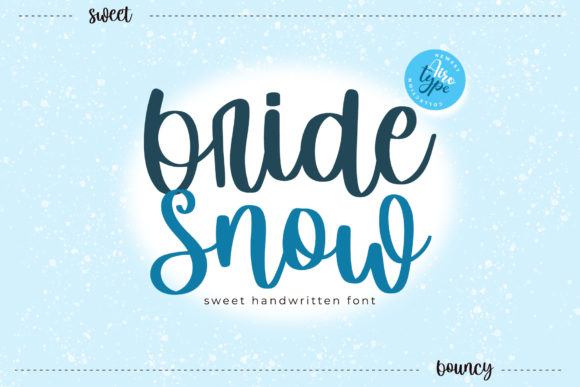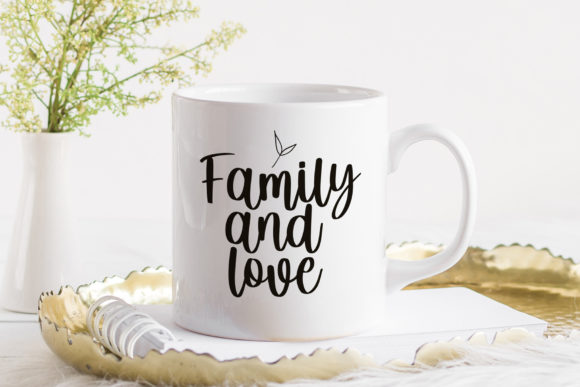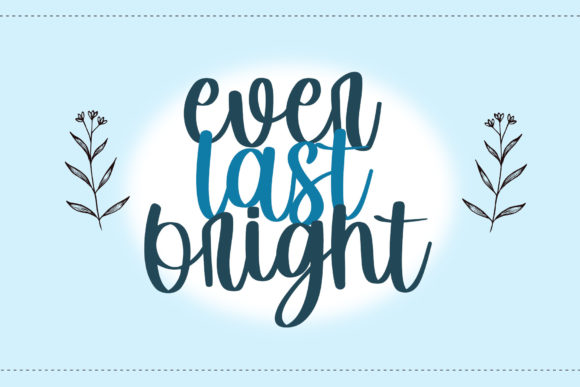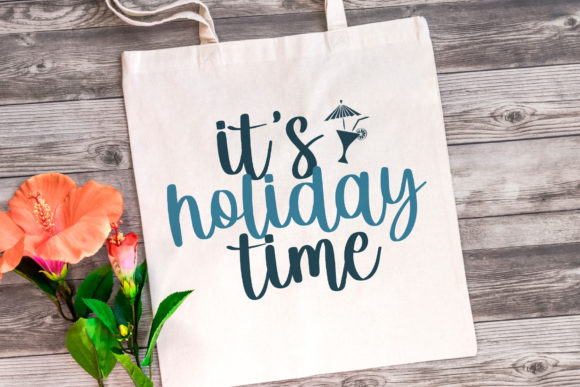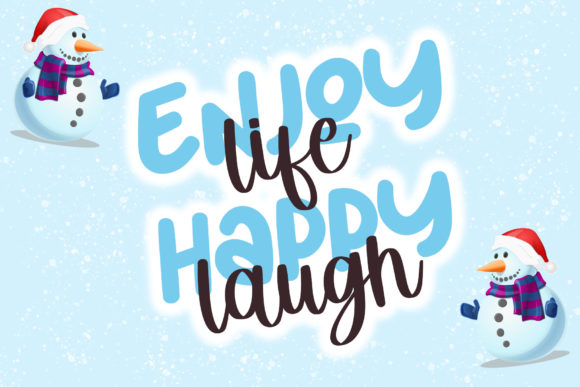
Bride Snow Font
About Bride Snow Font
Bride Snow is simple and bouncy handwritten font. This is bold, sweet, and cute at the same time. Use it for projects such as wedding invitation, branding, logo, crafting, sticker, sublimation, farmhouse label, and many more.